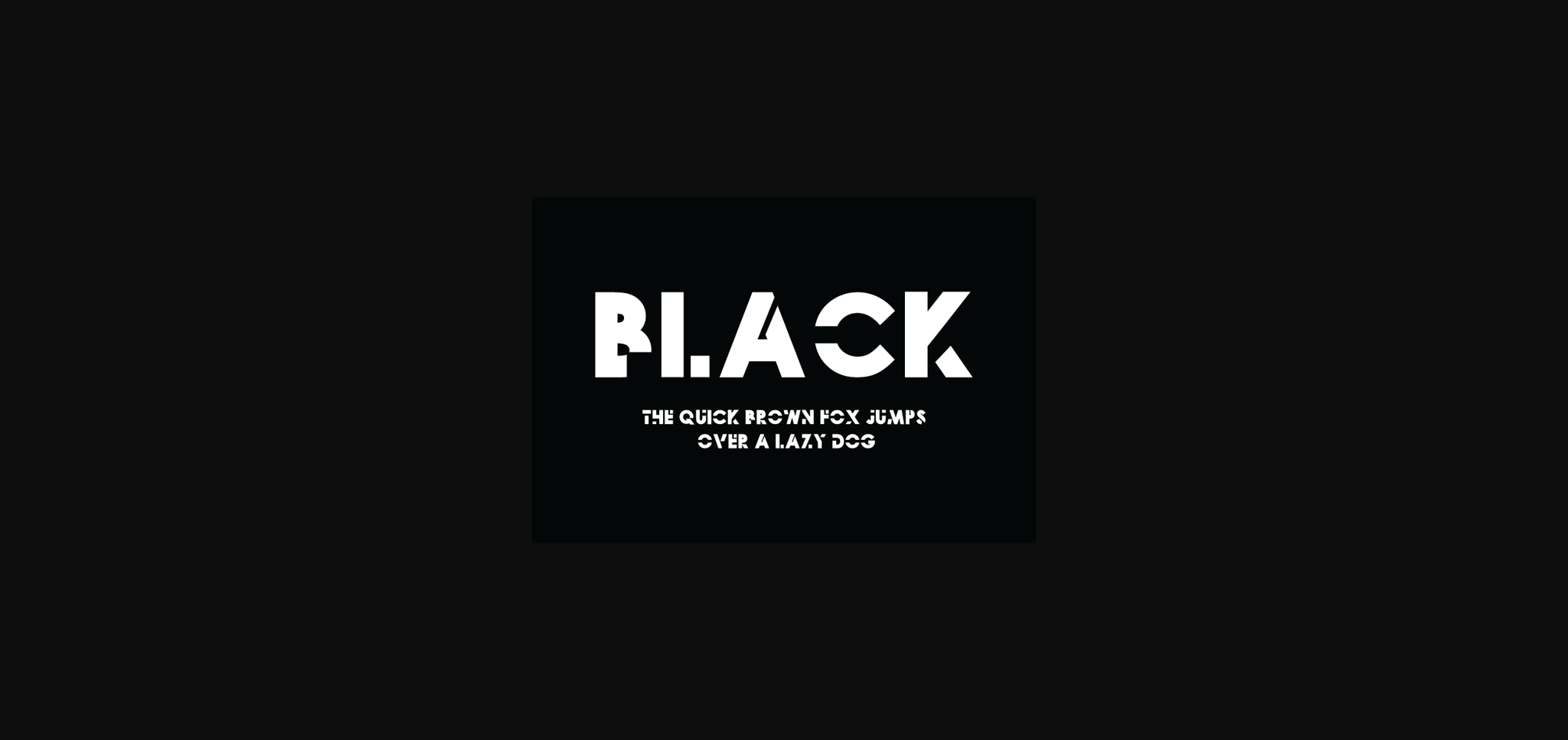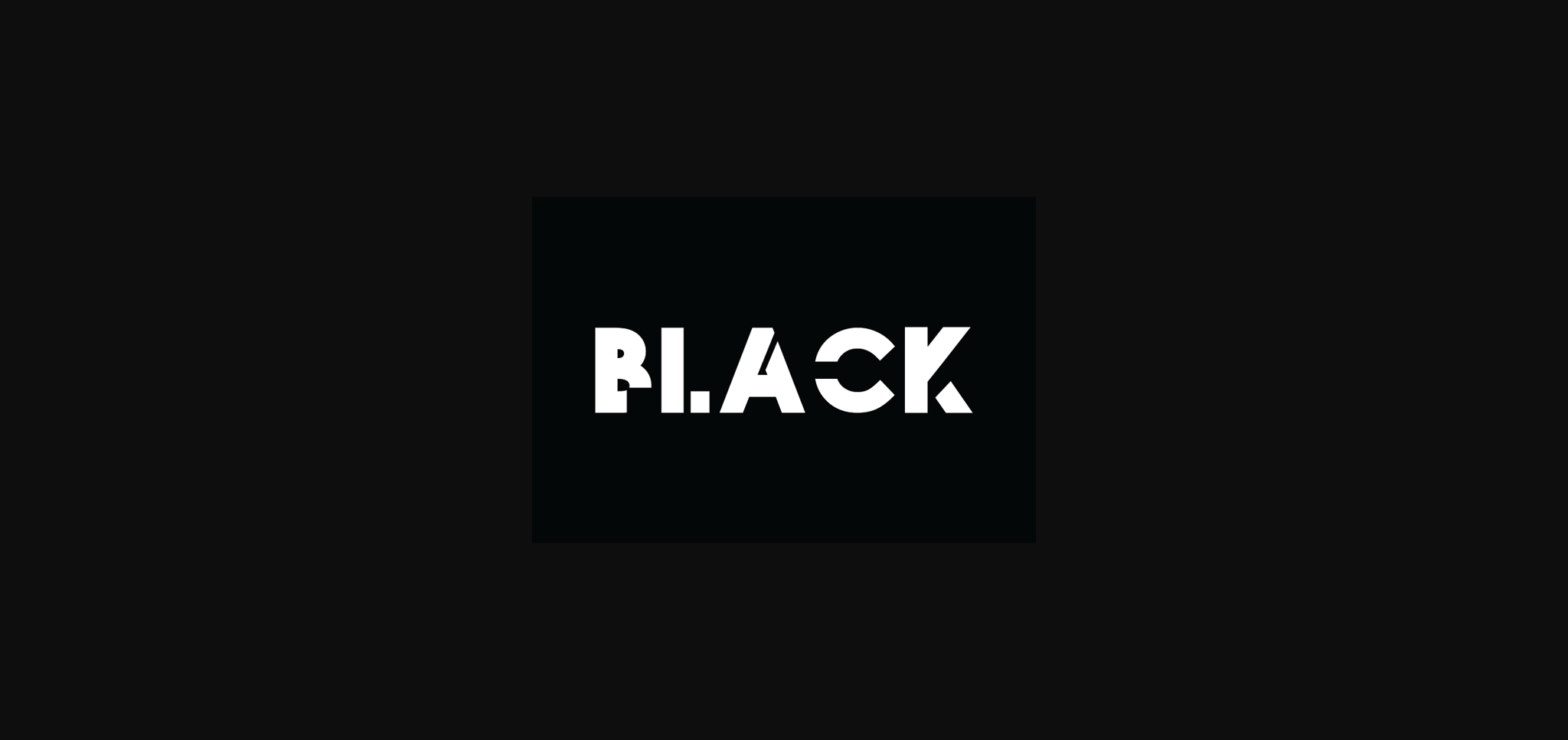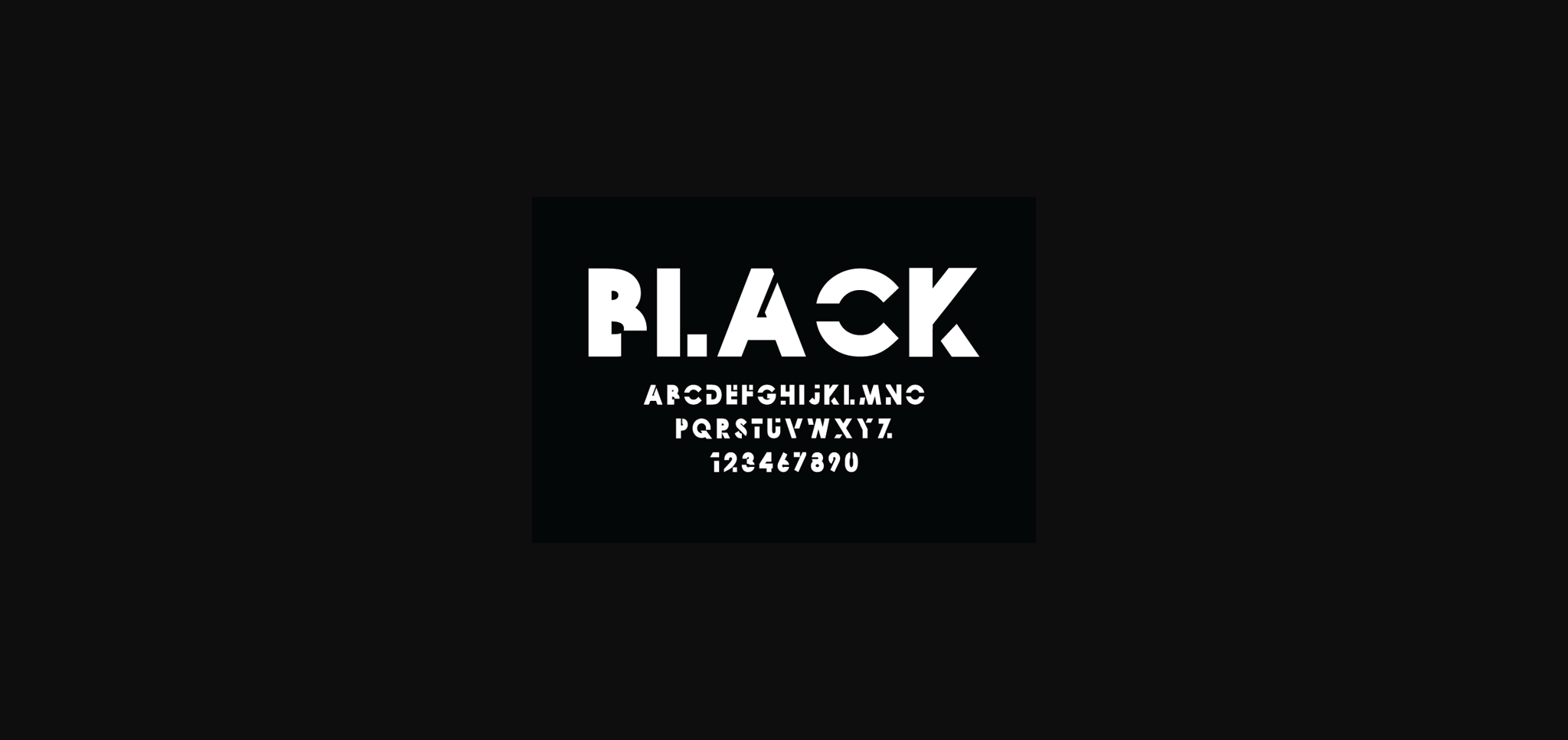
Black Font
About Black Font
Black is a bold and fat modern sans-serif font. Add it confidently to your creative projects and notice how it makes them stand out from the crowd. This bold black font looks gorgeous for its creative structure. With its balanced proportions, this font is perfect for creating a minimalist aesthetic in logos, web design, and branding.